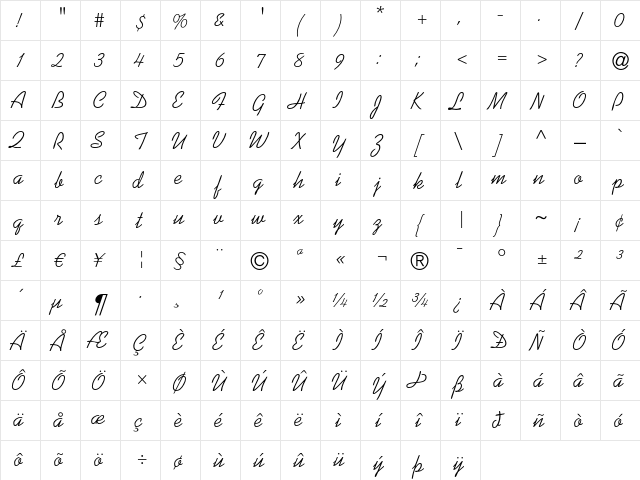
Kaufmann LT Roman
Design Context for Kaufmann LT Typeface
Kaufmann LT is a composed and adaptable typeface that performs quietly and consistently across a wide range of design contexts. The delicate stroke weight brings airiness and refinement to layouts.